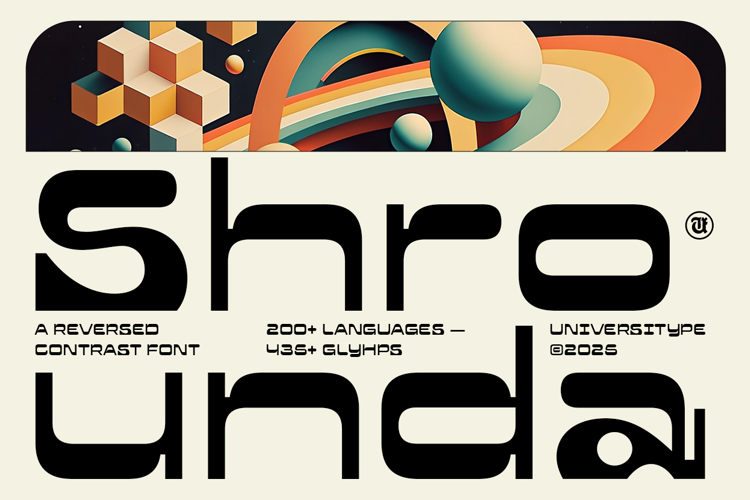
UT Shrounda Font
UT Shrounda is a bold experimental display typeface built on reversed contrast logic. Instead of stressing vertical strokes, the weight sits firmly on the horizontals, giving each letter a grounded, architectural presence. The result feels futuristic yet familiar, mechanical yet expressive. Shrounda carries a steady visual cadence that pulls the eye forward, line by line.